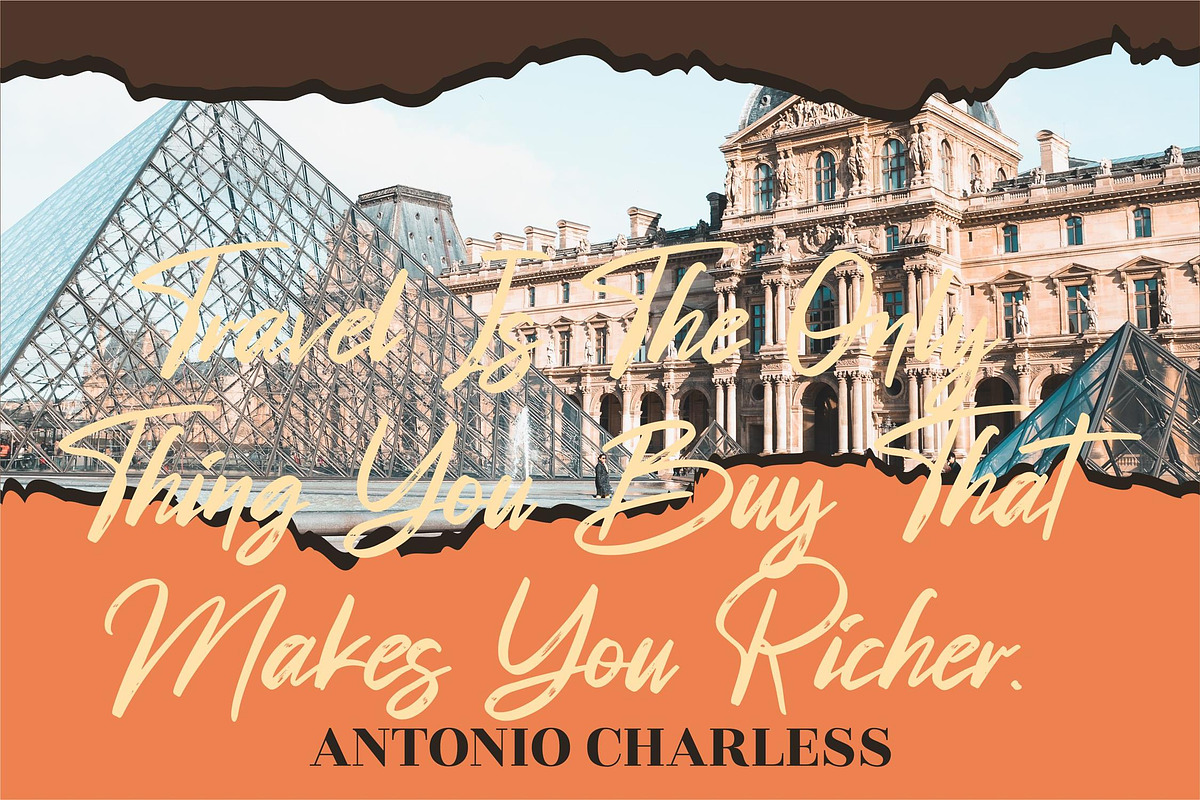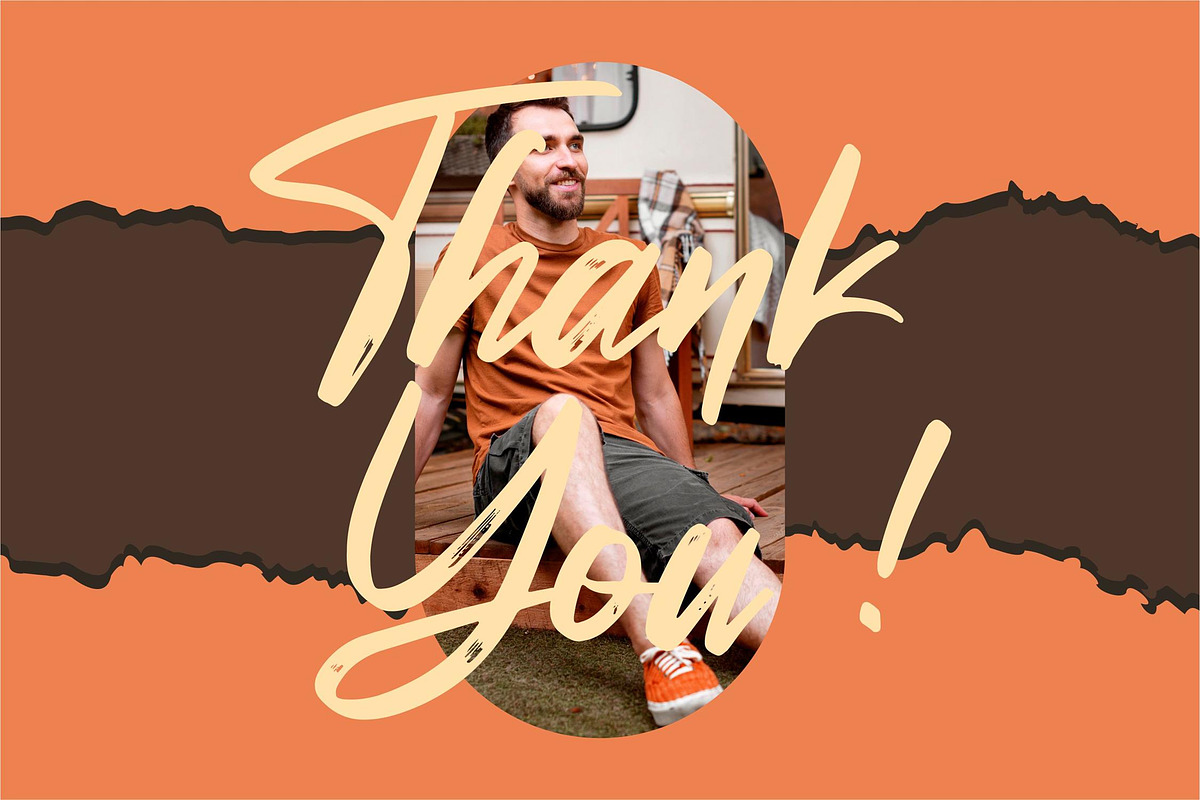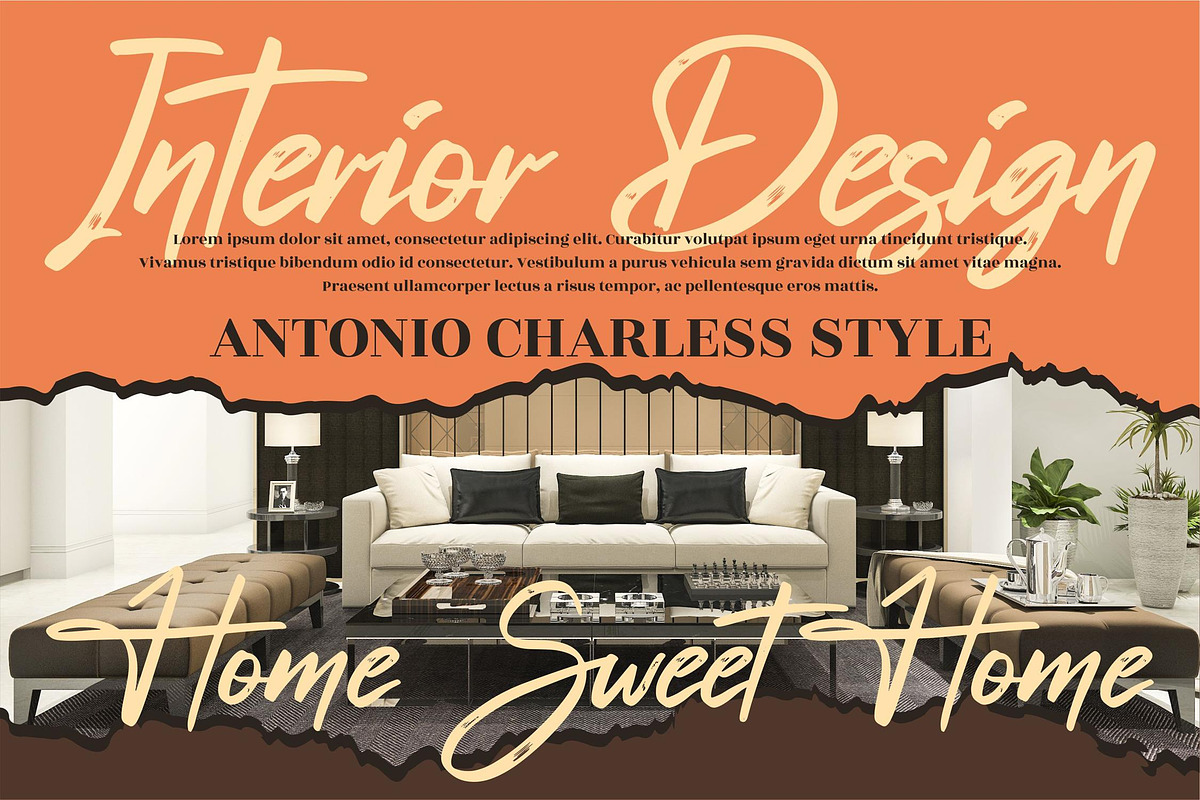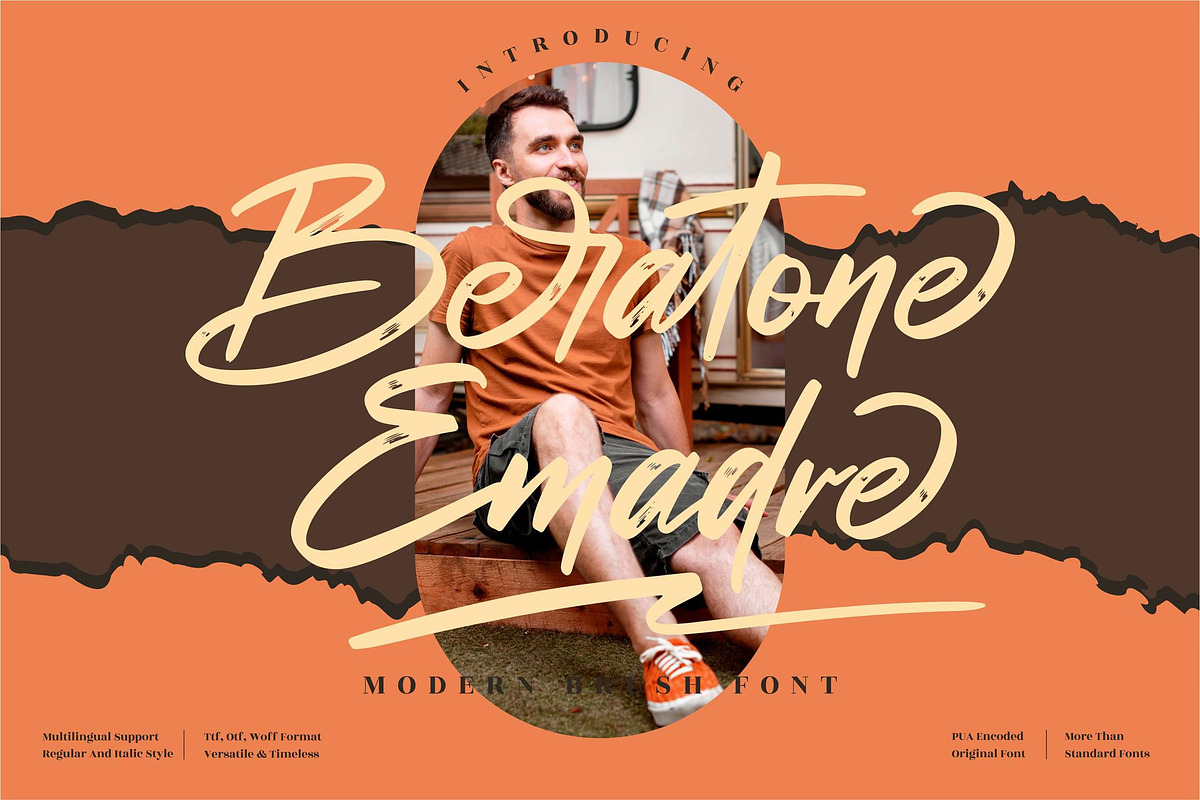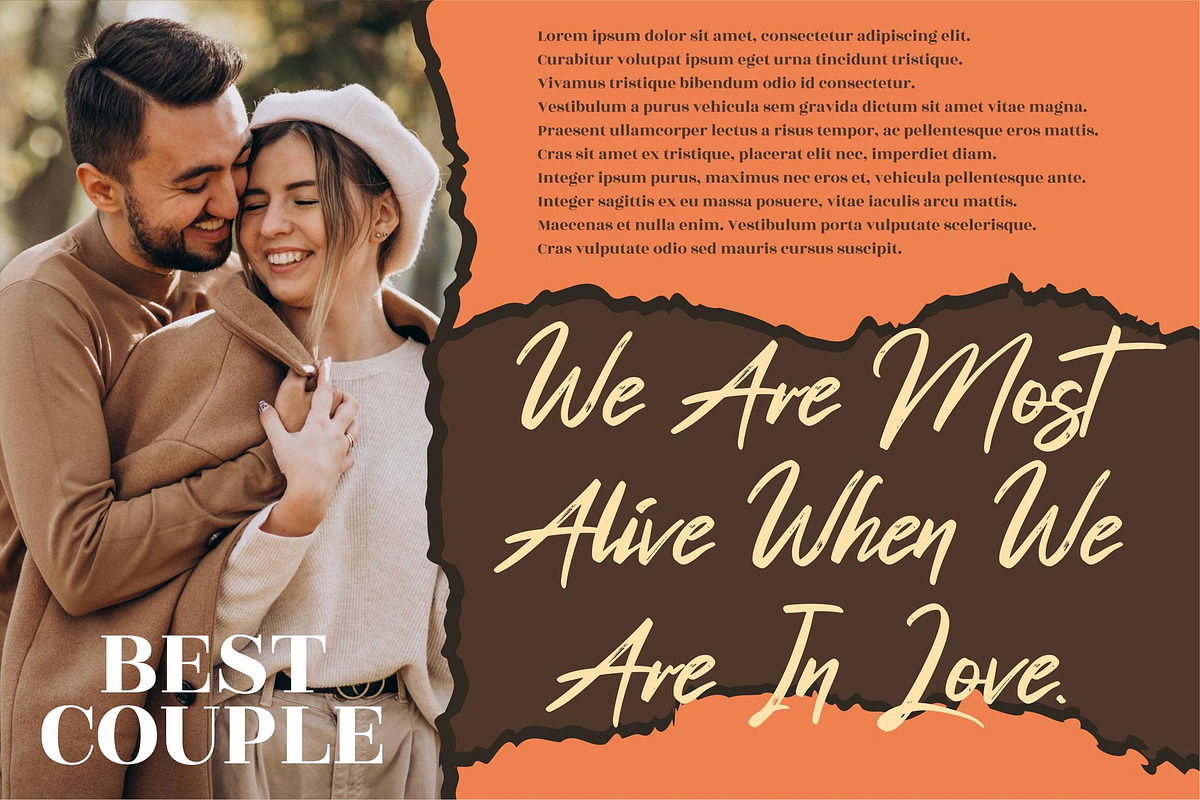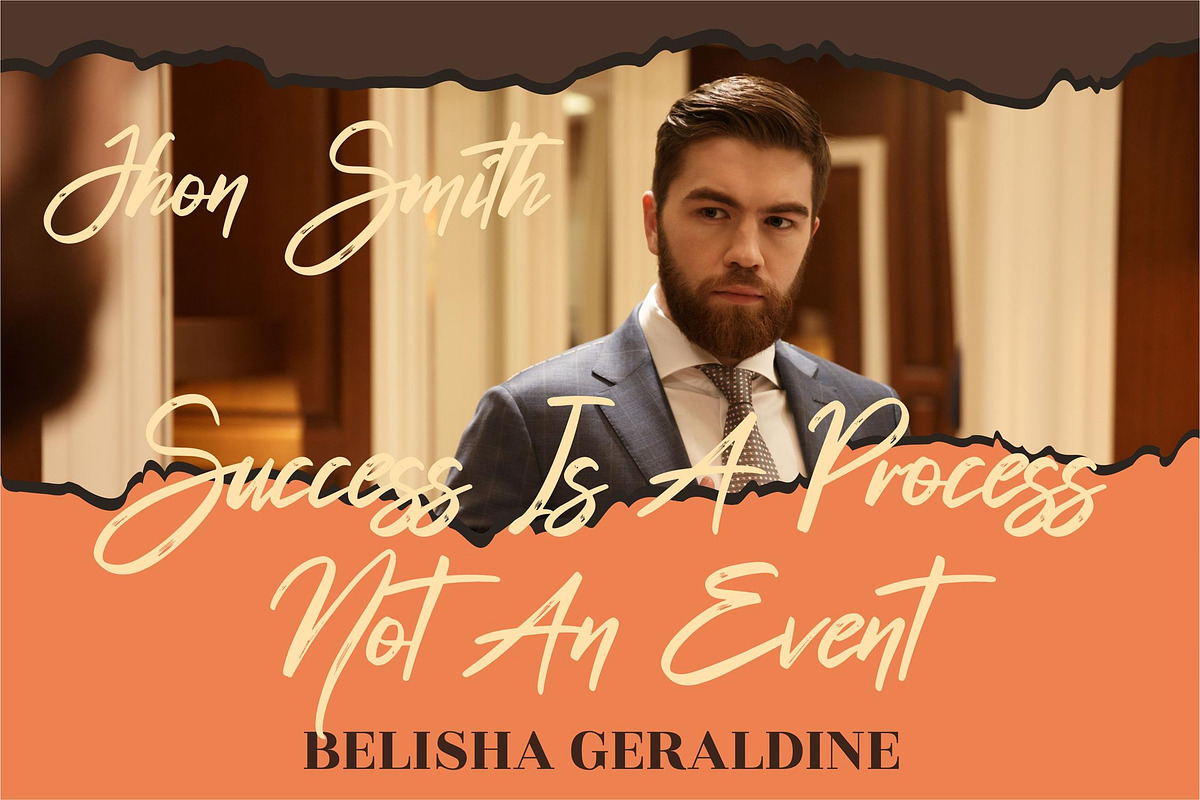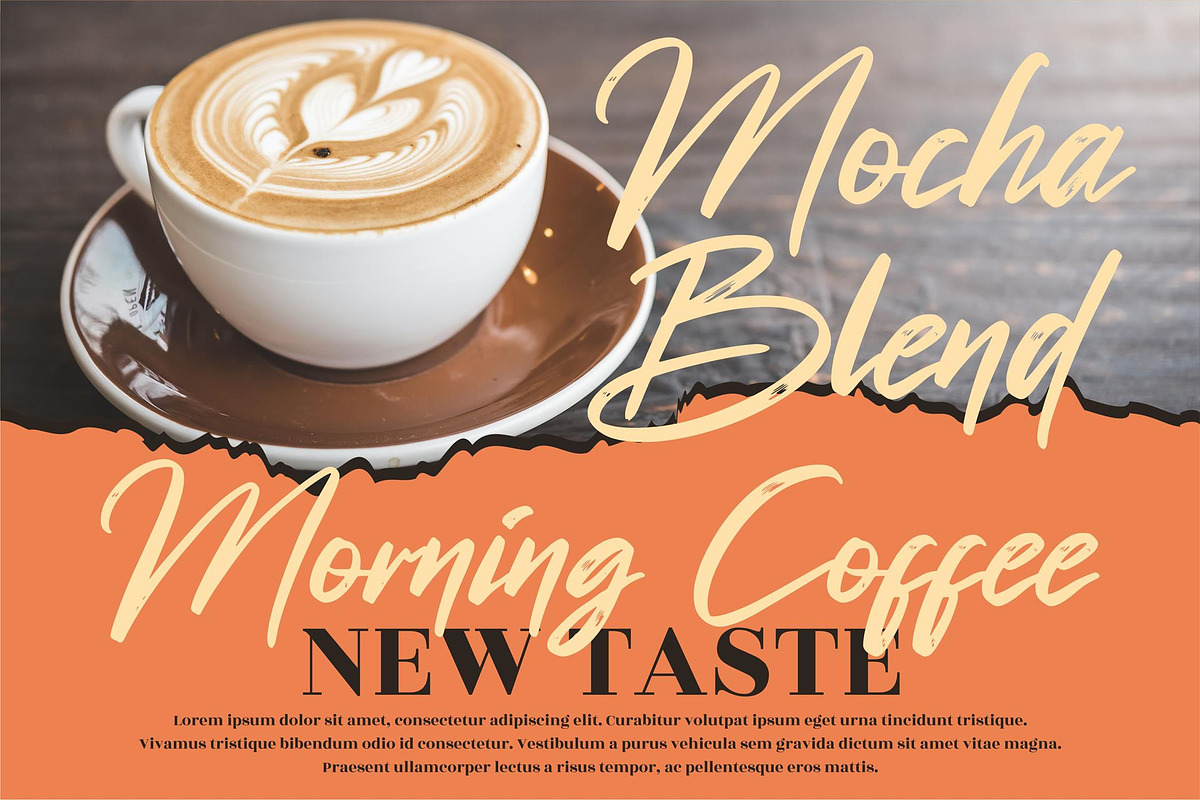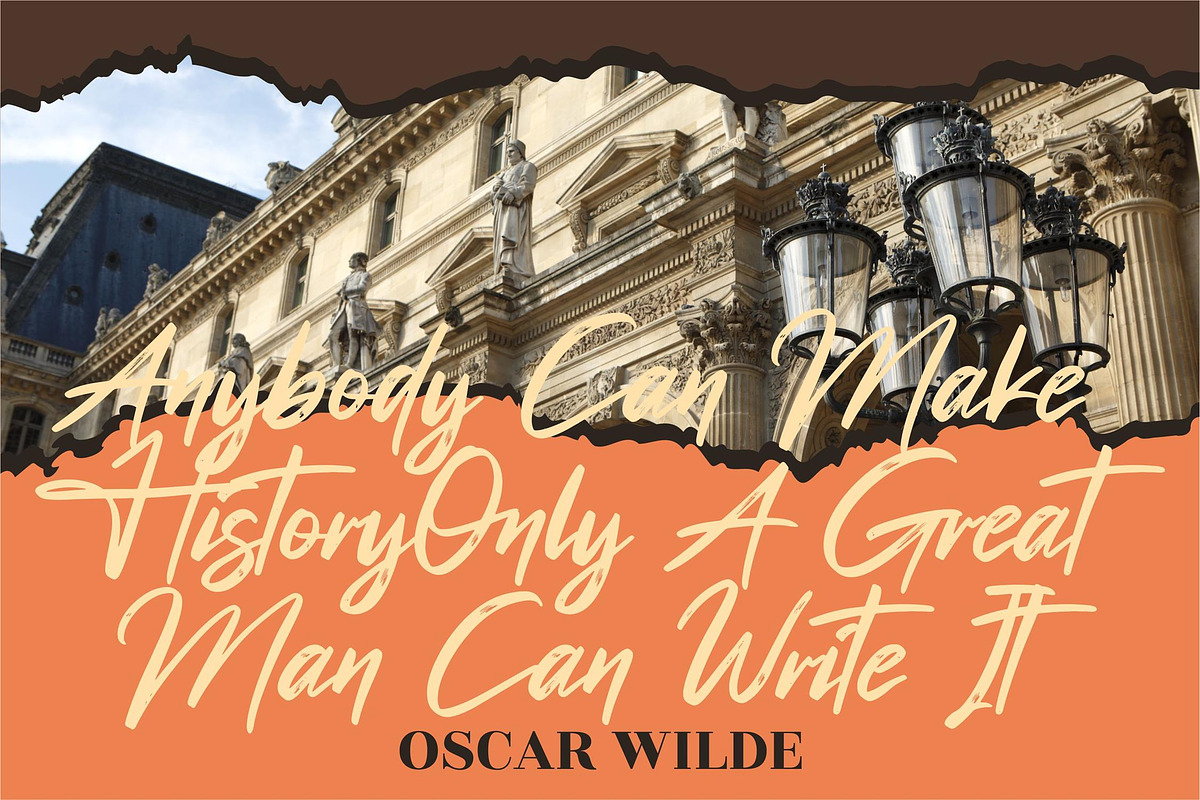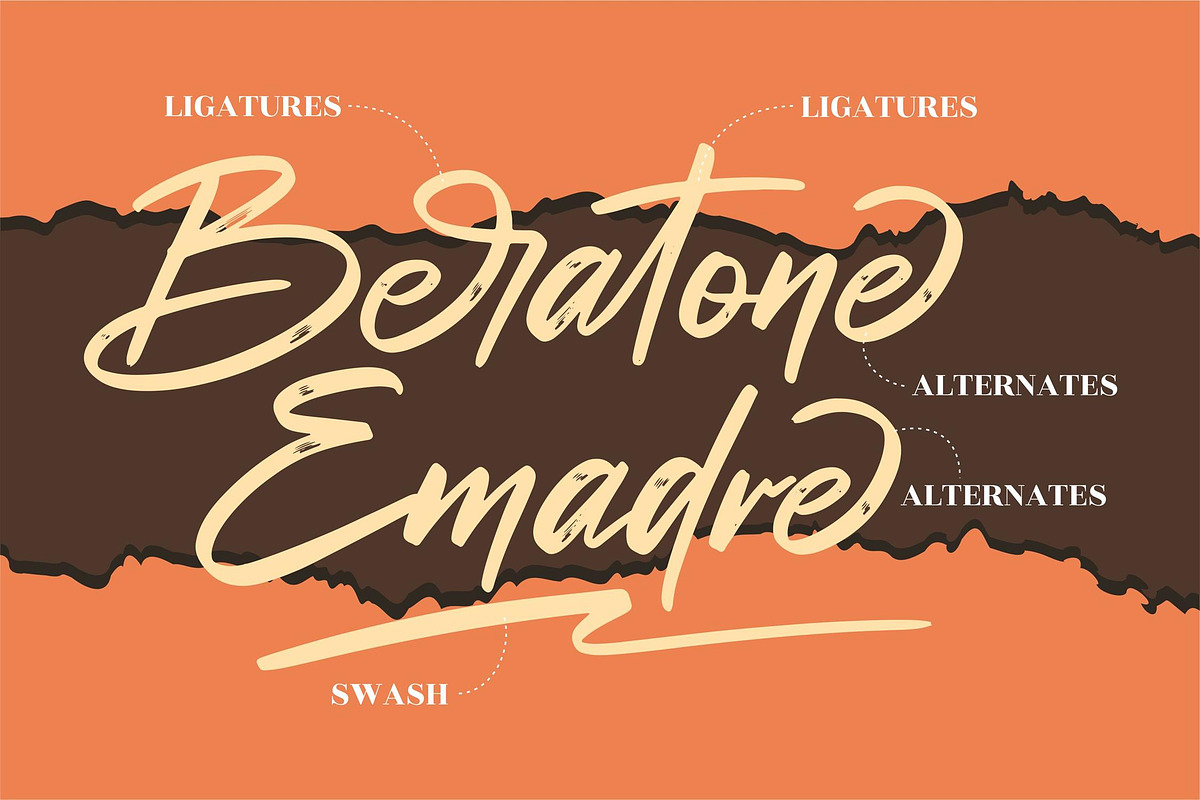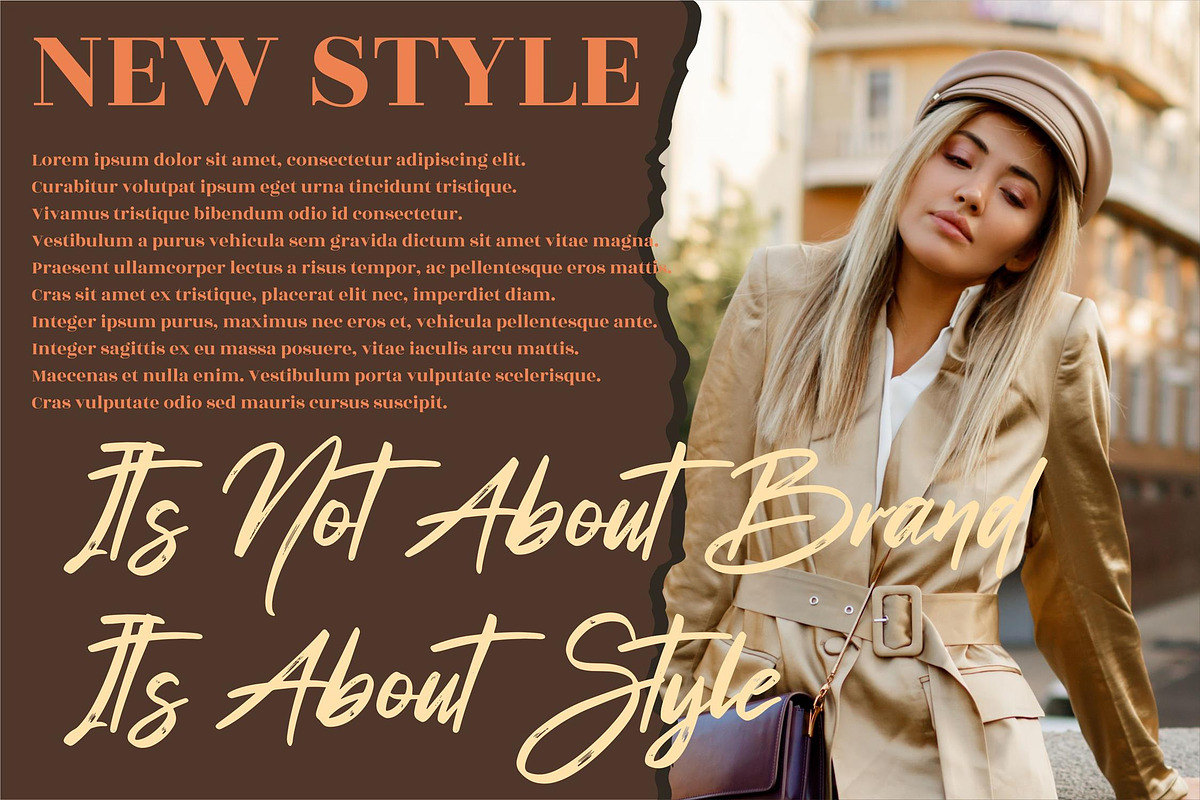
Beratone Emadre Brush LS
Hi ladies & gentlemen, this is one of our fonts suitable to complement your digital and printed creative products. This font is perfect for posters, social media posts, branding, personal projects, etc.